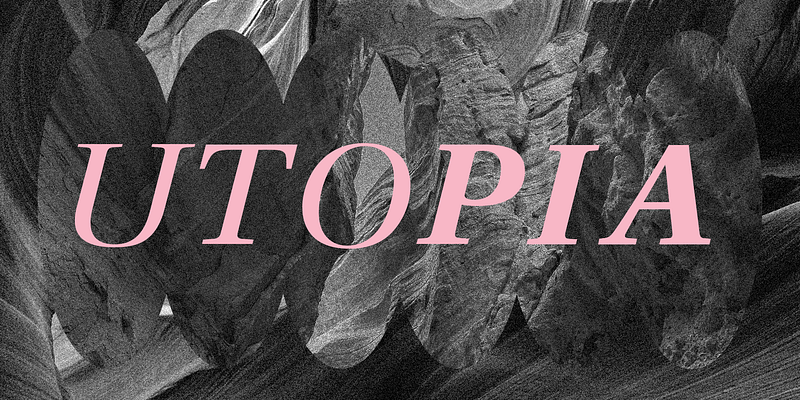
Reforma vs Utopia
Reforma and Utopia are both serif typefaces sharing a transitional foundation. Where Reforma leans editorial, Utopia brings modern. Compare which suits your Books project.
Design overlap:60%
Reforma
Transitional
ElegantReadable
Utopia
Transitional
ElegantReadableModern
| Feature | Reforma | Utopia |
| Language Support | latin, latin-extended | latin, latin-extended, cyrillic, greek |
| Source | PampaType | Adobe |
Recommended: Reforma
- editorial design character
- Suited for Publishing
- From pampatype
Consider: Utopia
- modern design character
- Suited for Print
- From adobe